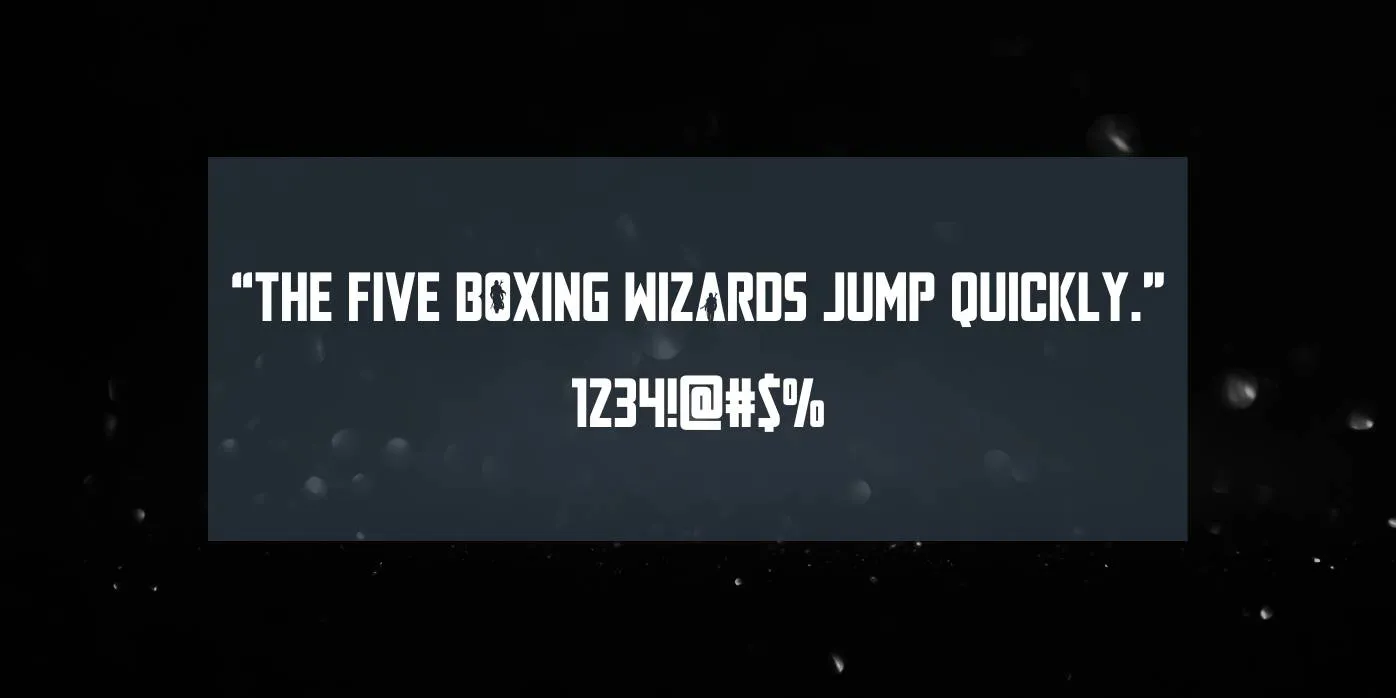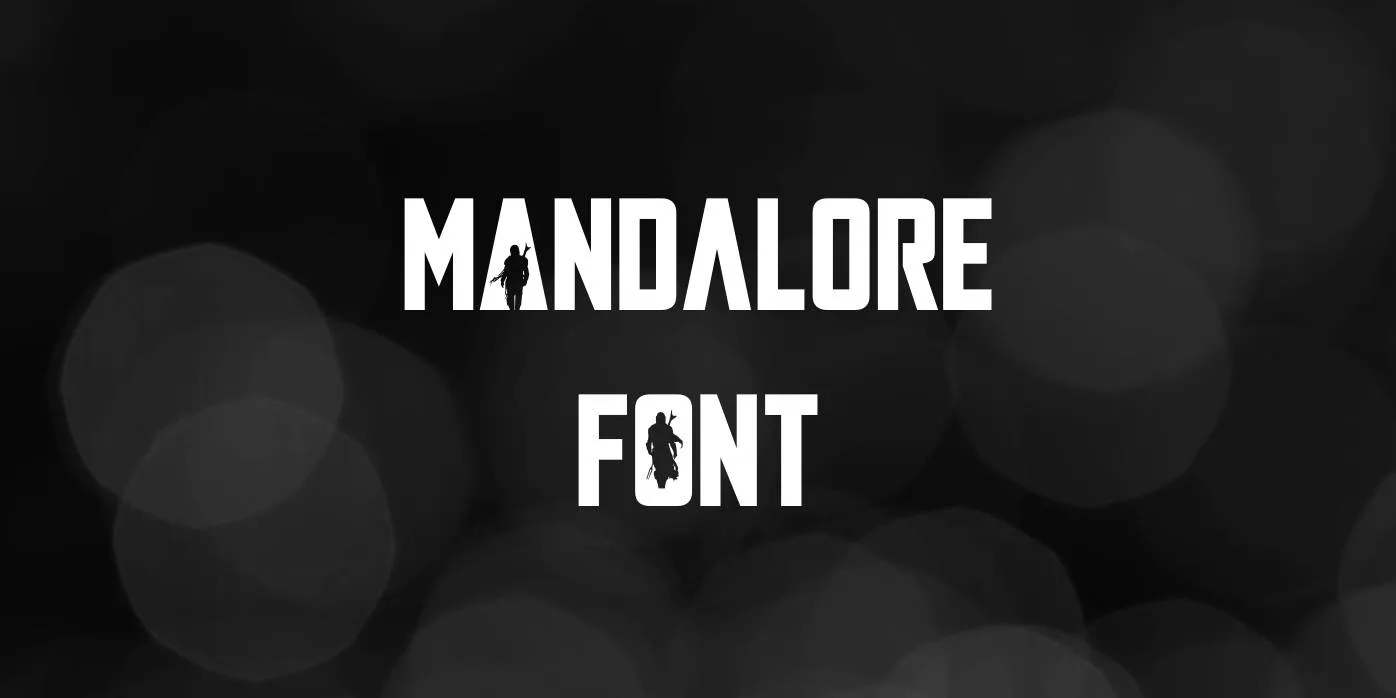
Mandalore Font
Mandalore Font is a modern typeface that belongs to the sans serif font family. This family was developed by Iconian Fonts. This font was created with clean and strong shapes. The shapes were made to give a modern look while still providing good readability.
It is perfect for any display use, such as headlines, posters, and titles. This sans serif font is available in two styles: regular and italic. Each style contains six weights, from light to black. The copy and paste function of this font family is best for all text designs.